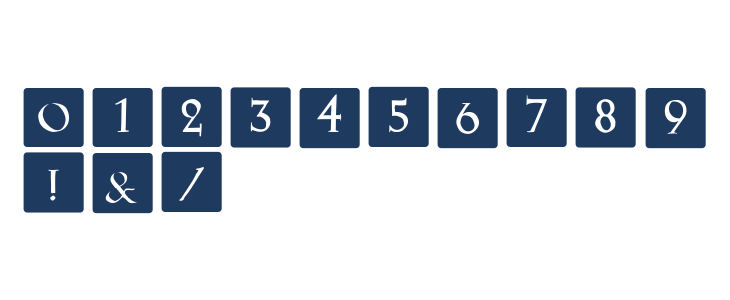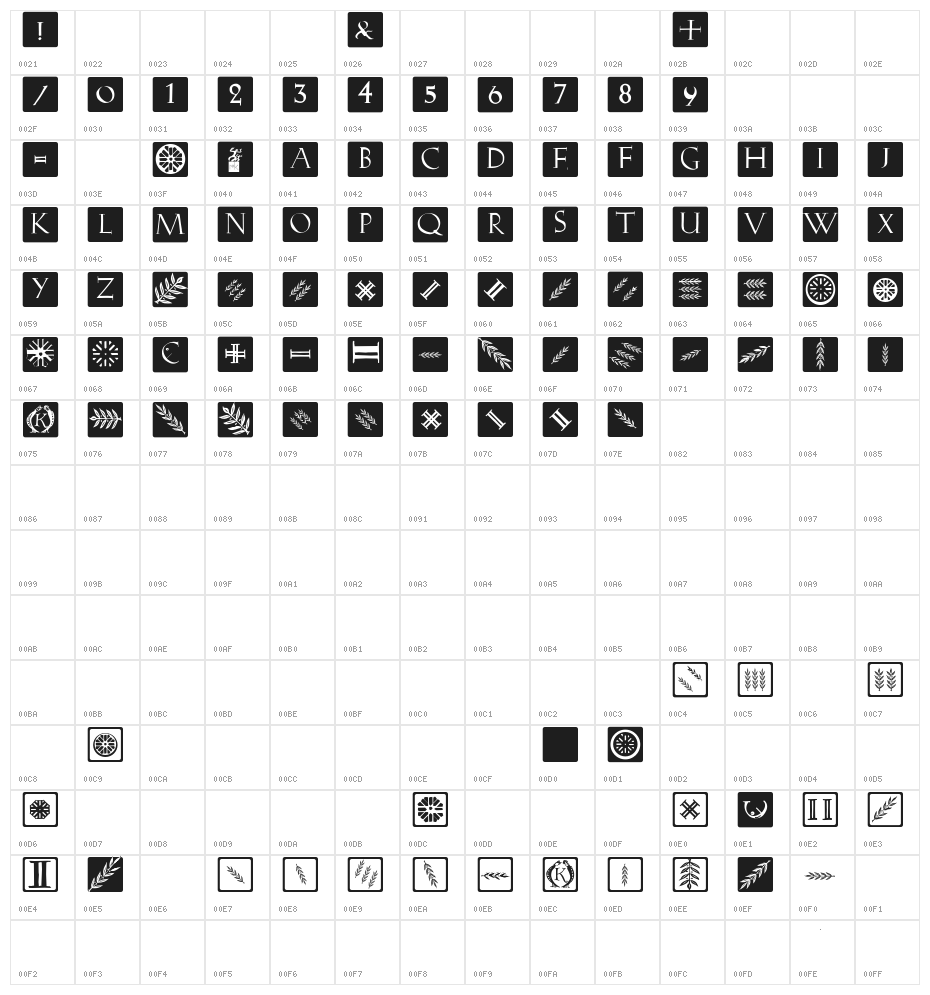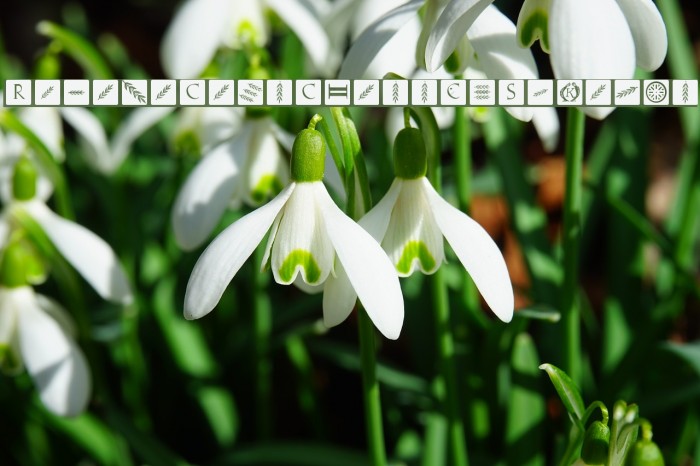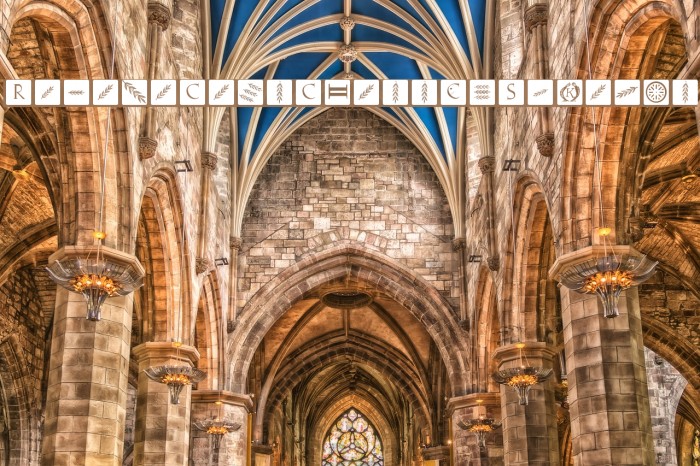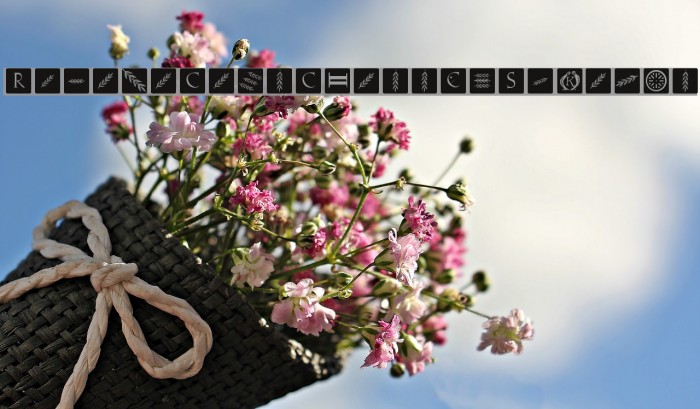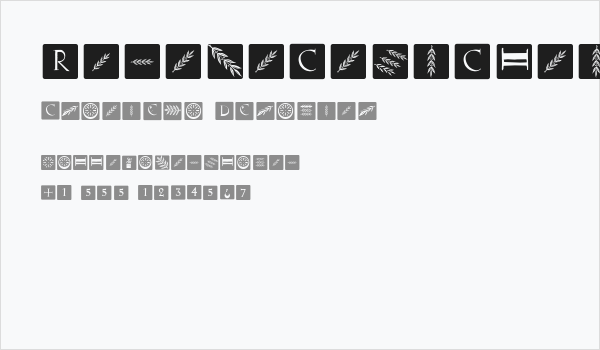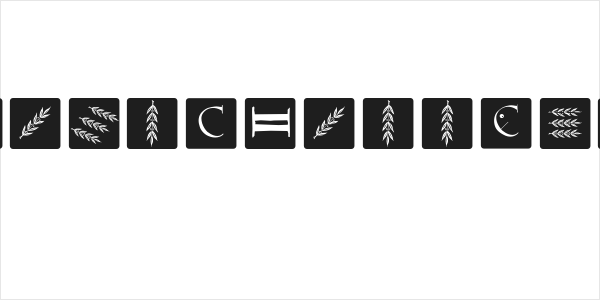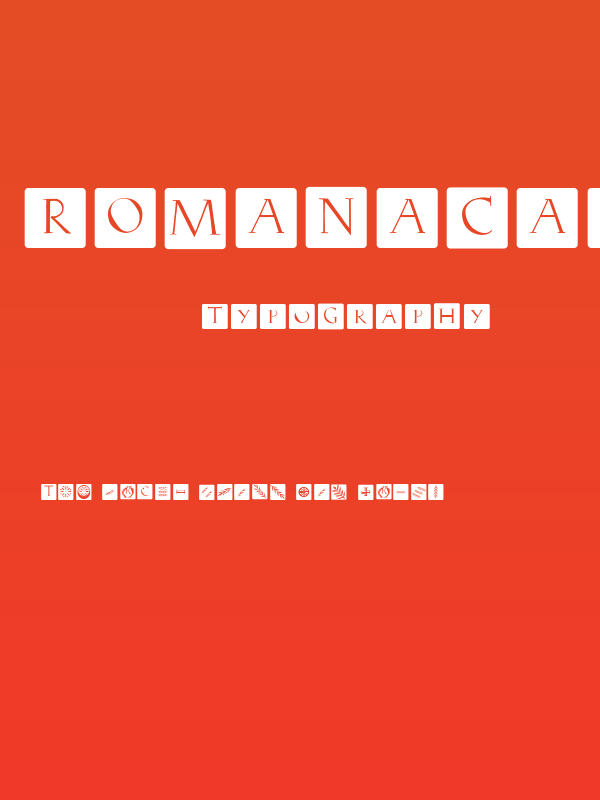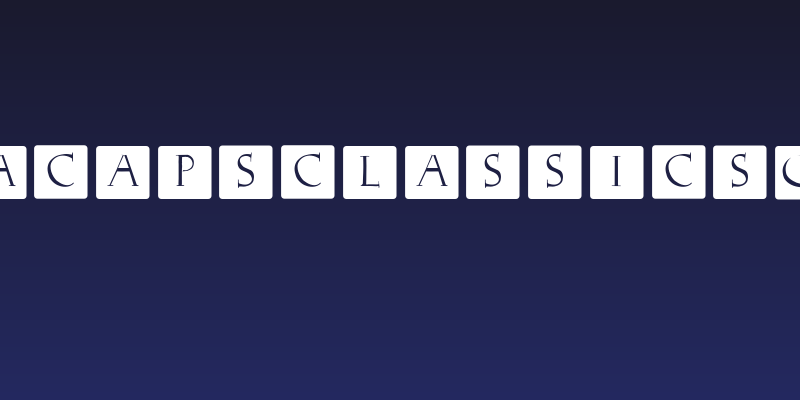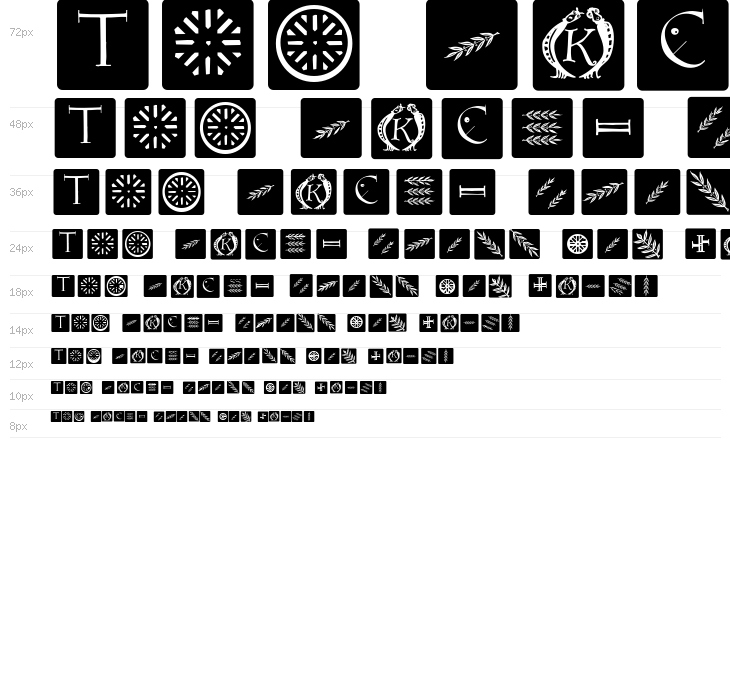
RomanaCapsClassicSquares Font
RomanaCapsClassicSquares Description
This font features a classic and decorative style, with each character elegantly enclosed within a square. The uppercase letters are bold and prominent, while the lowercase letters are adorned with intricate decorative elements, adding a touch of sophistication. The numbers are clear and consistent, maintaining the decorative theme. Special characters are also included, each with unique embellishments that enhance the overall aesthetic. This font is ideal for projects that require a touch of elegance and classic charm, making it suitable for invitations, branding, and decorative headings.
| Overall Style | Classic, Decorative |
| Proposed Projects | Ideal for wedding invitations, luxury branding, decorative headings, and artistic projects. |